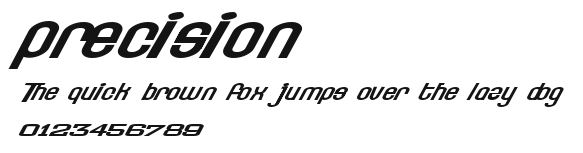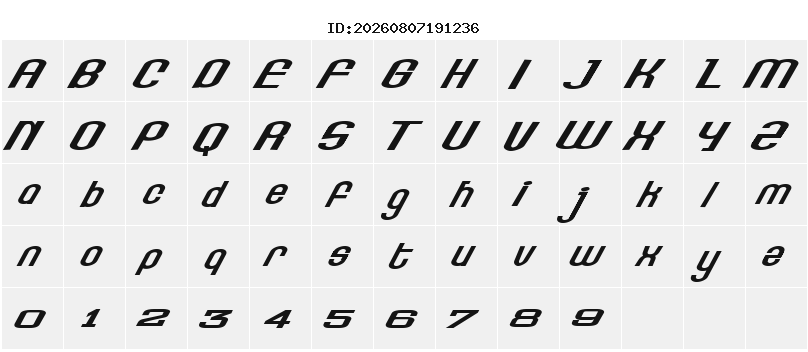
precision Preview
• Font Name: precision
• Full Font Name: precision
About precision.ttf
precision.ttf is a modern, elegant sans-serif font designed for ultimate readability and visual harmony. Perfect for branding, headlines, web design, and print materials.